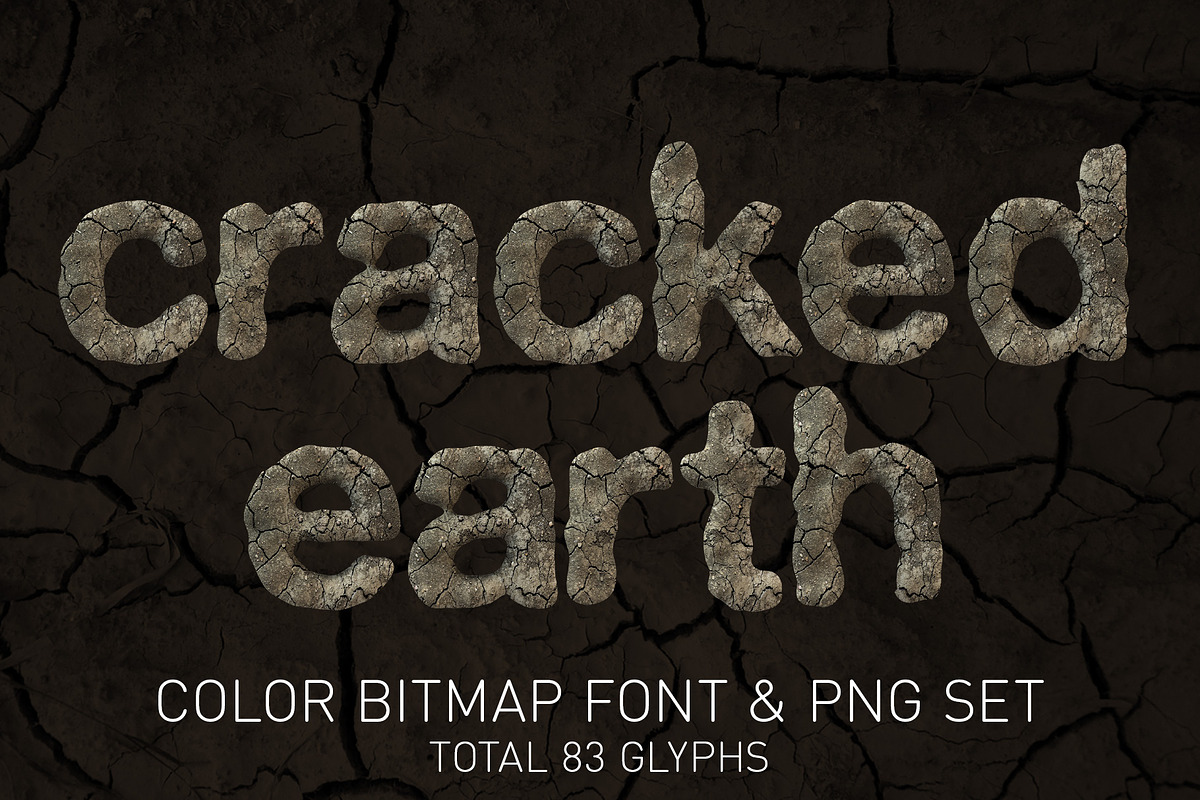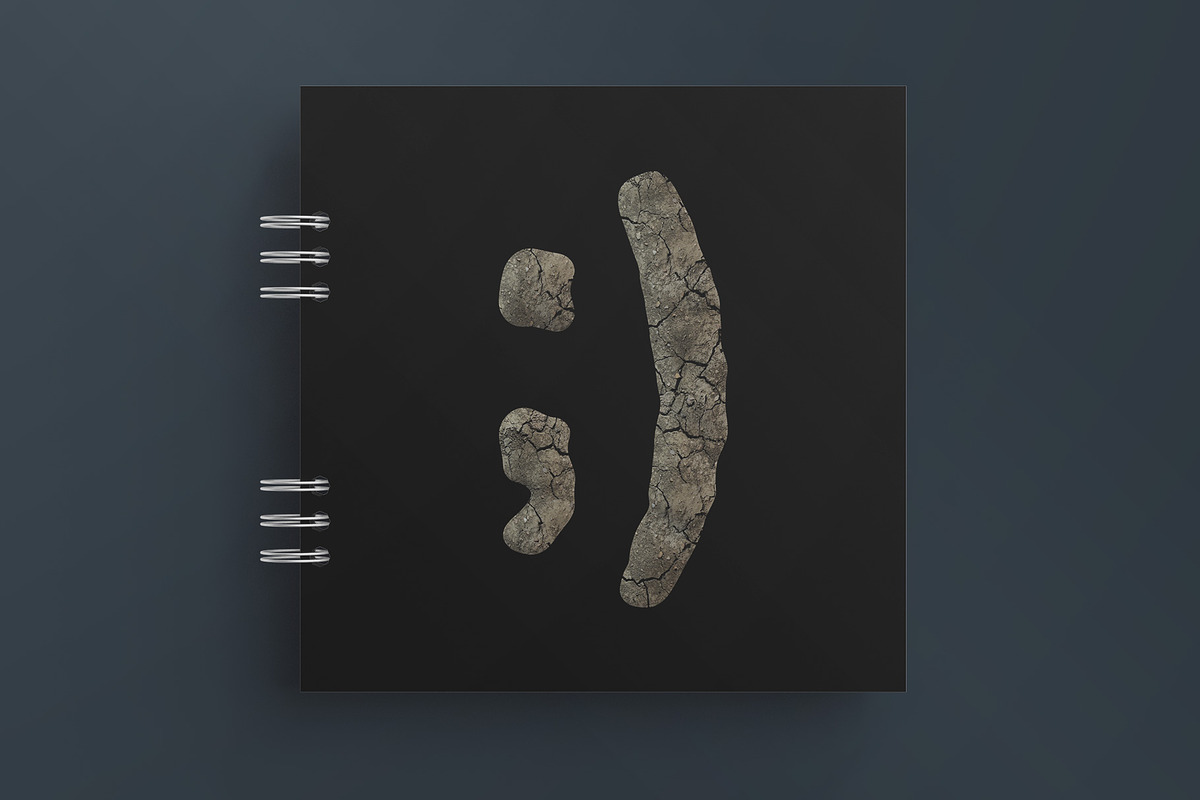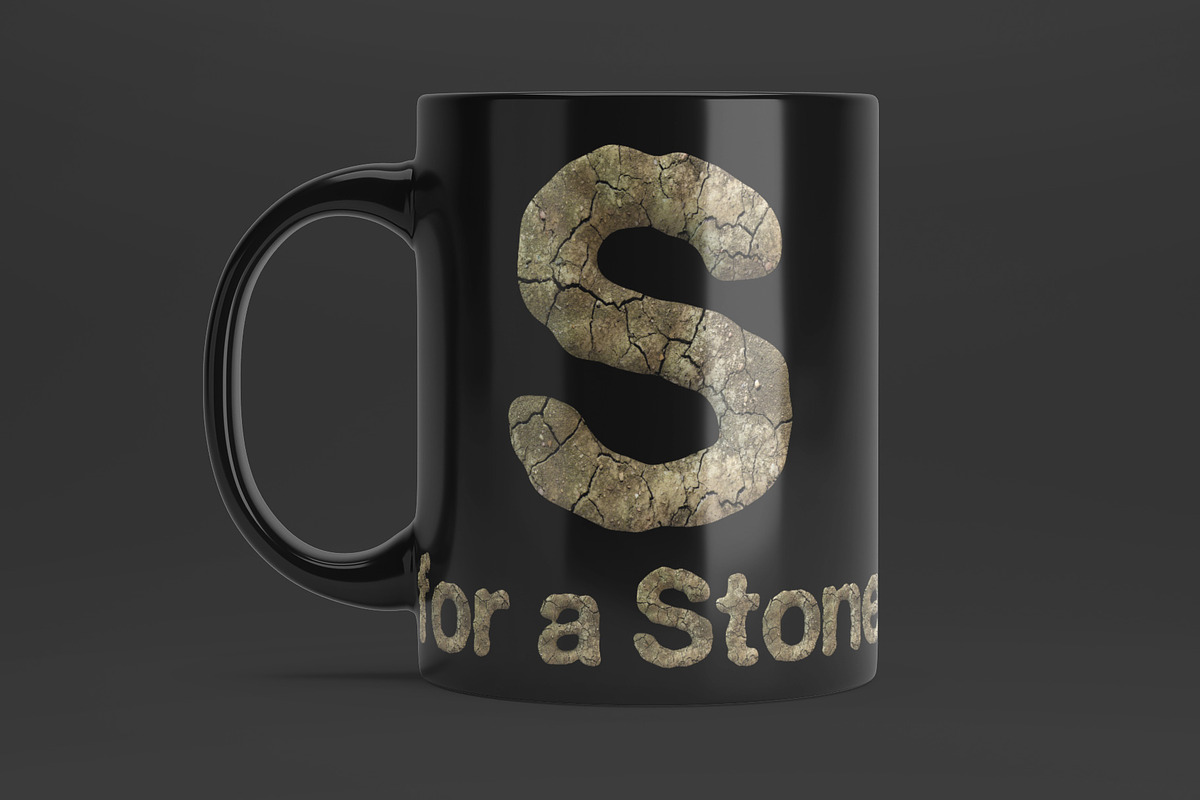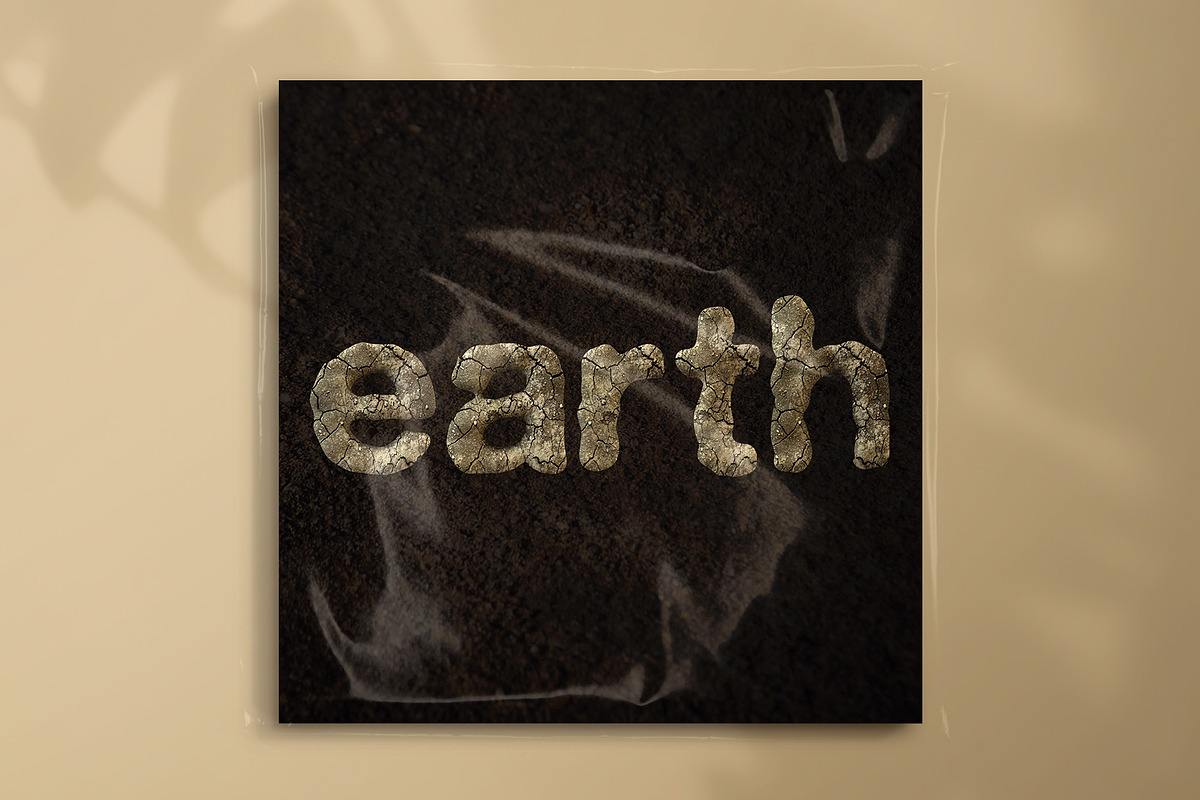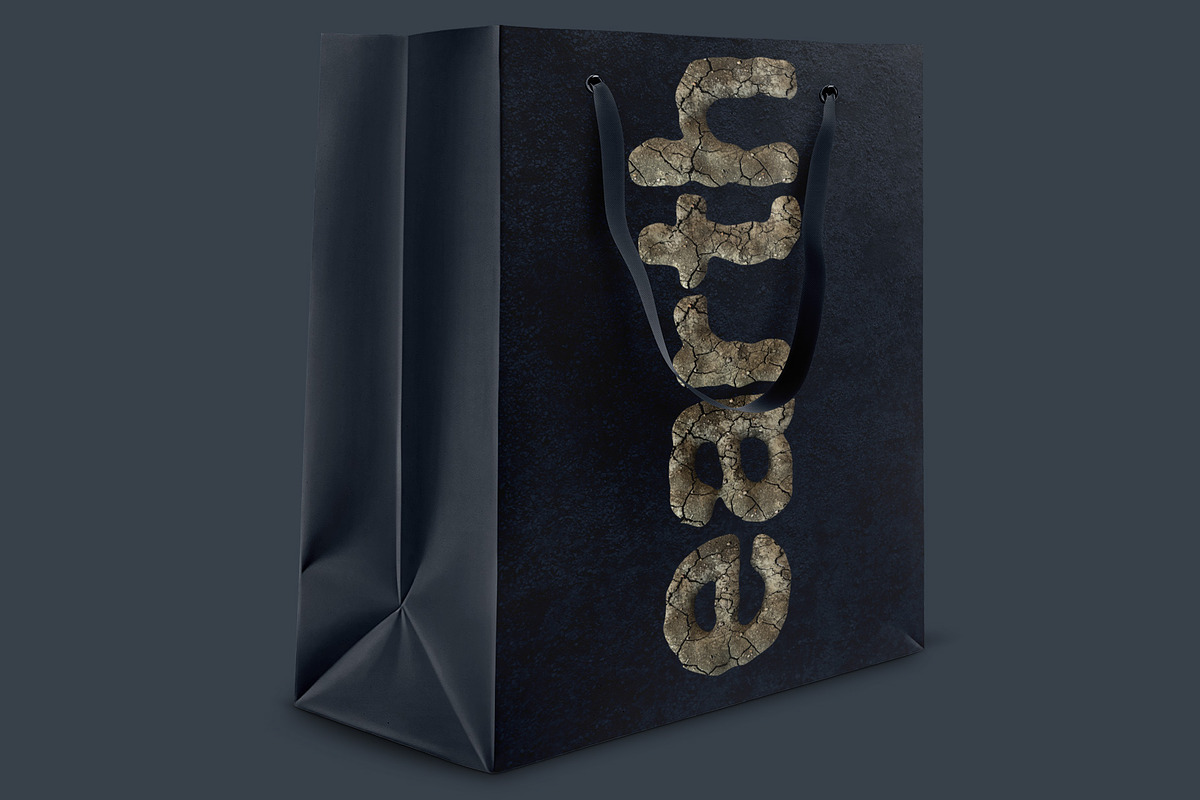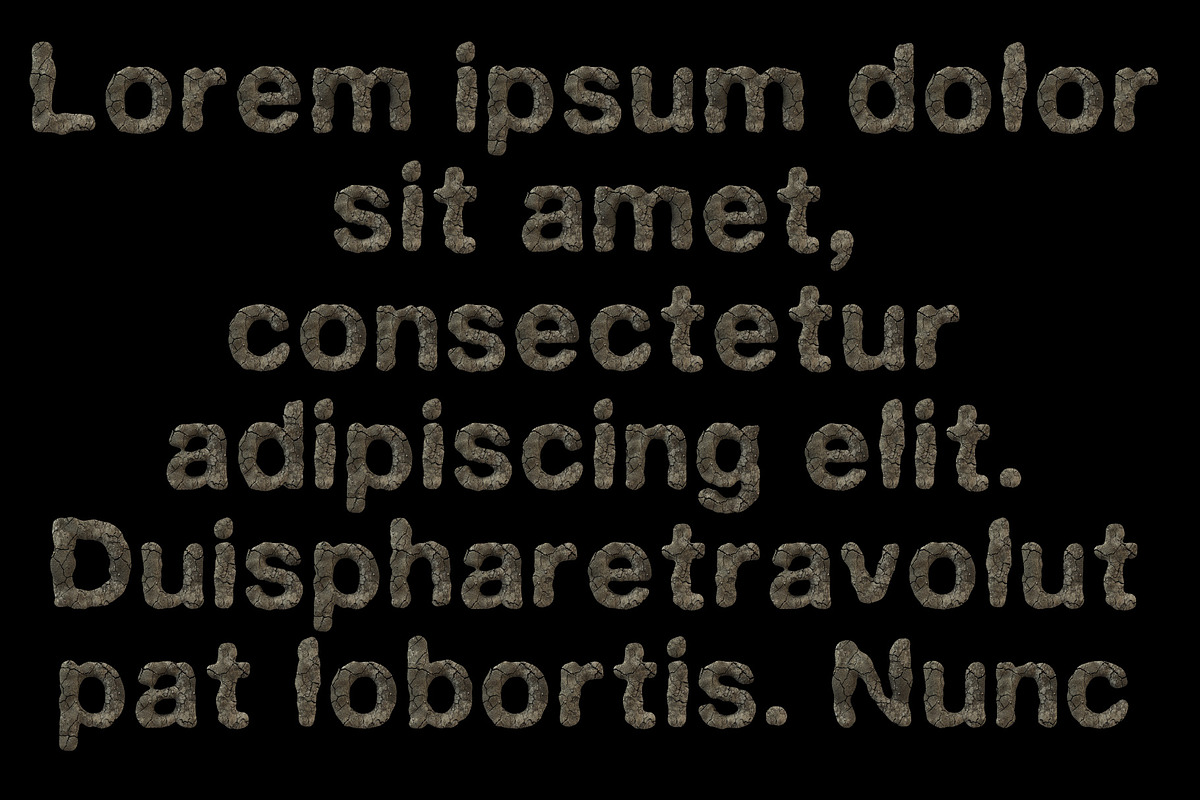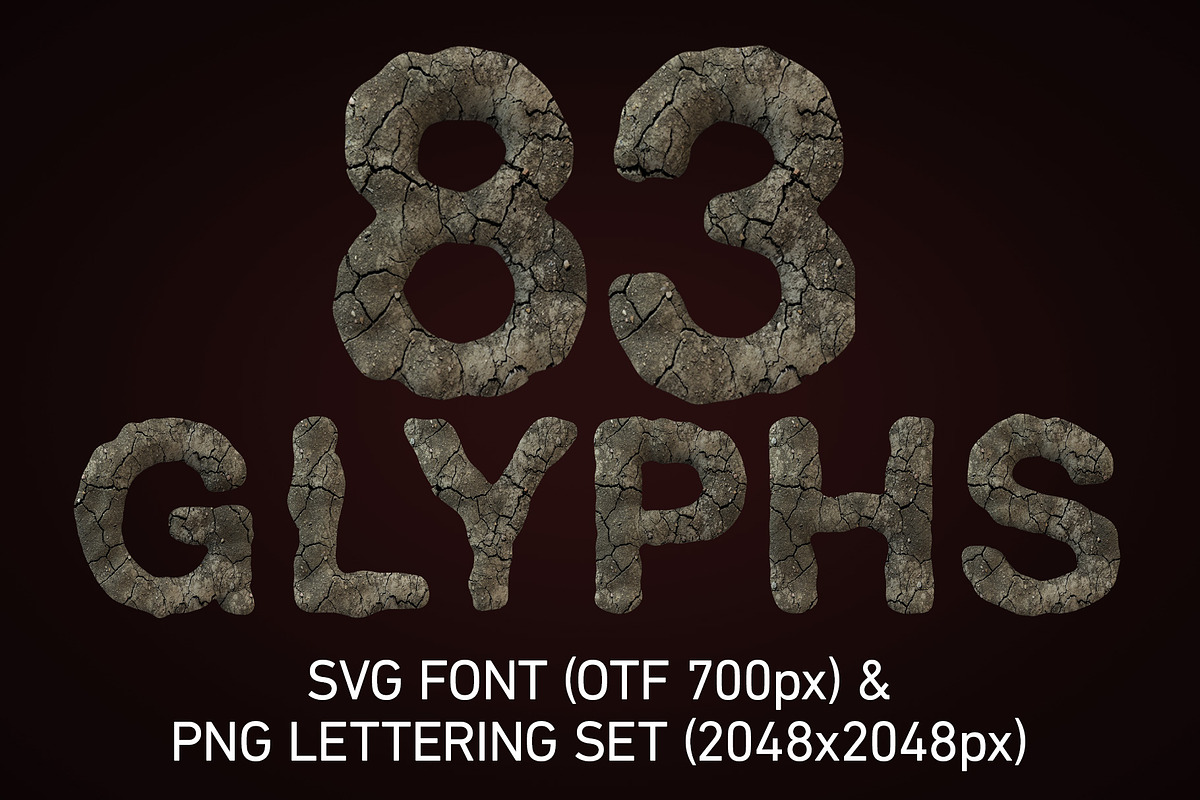
Cracked Earth Color Font and PNGs
Introducing the striking Cracked Earth Color Bitmap SVG Font and transparent PNGs, a must-have design asset that will add a touch of uniqueness to your projects. This versatile font features 83 beautifully rendered glyphs, including uppercase and lowercase letters, as well as common punctuation marks and symbols, ensuring that all your typographical needs are met.
Each glyph has a height of up to 700 pixels, providing a highly detailed and realistic look. Additionally, every glyph has been meticulously crafted using 3D software, giving it a unique and eye-catching appearance that will set your projects apart.
With its cracked earth design, this font is perfect for adding a touch of rustic and organic charm to your designs. Whether you're creating graphics for a website, designing a logo, or working on a print project, the Cracked Earth Color Bitmap SVG Font and transparent PNGs will add a unique and captivating element to your work.